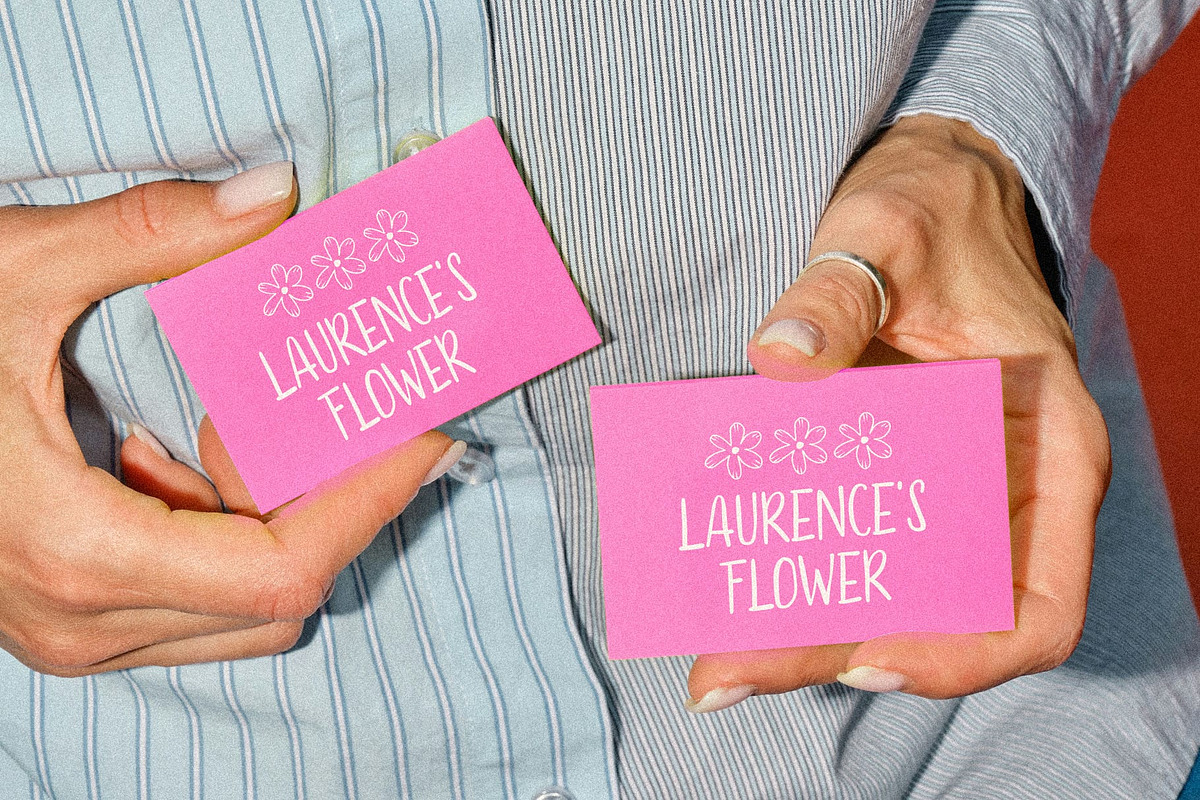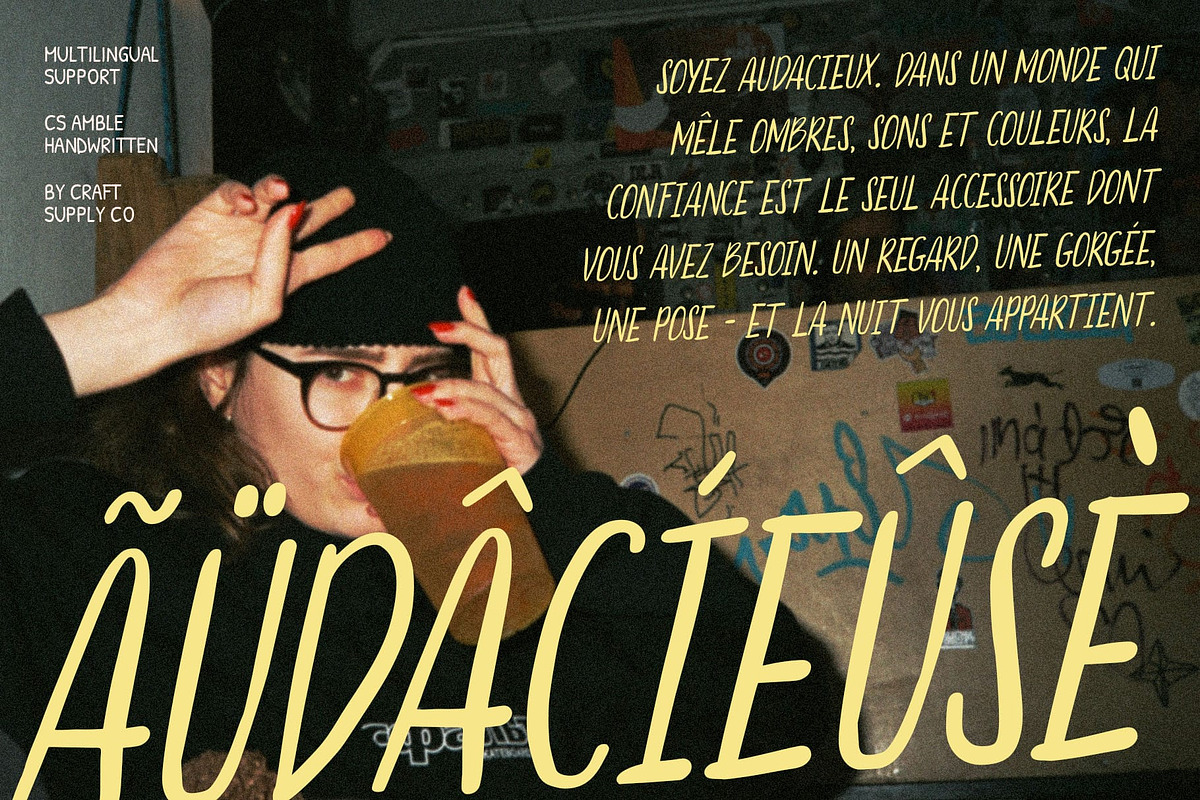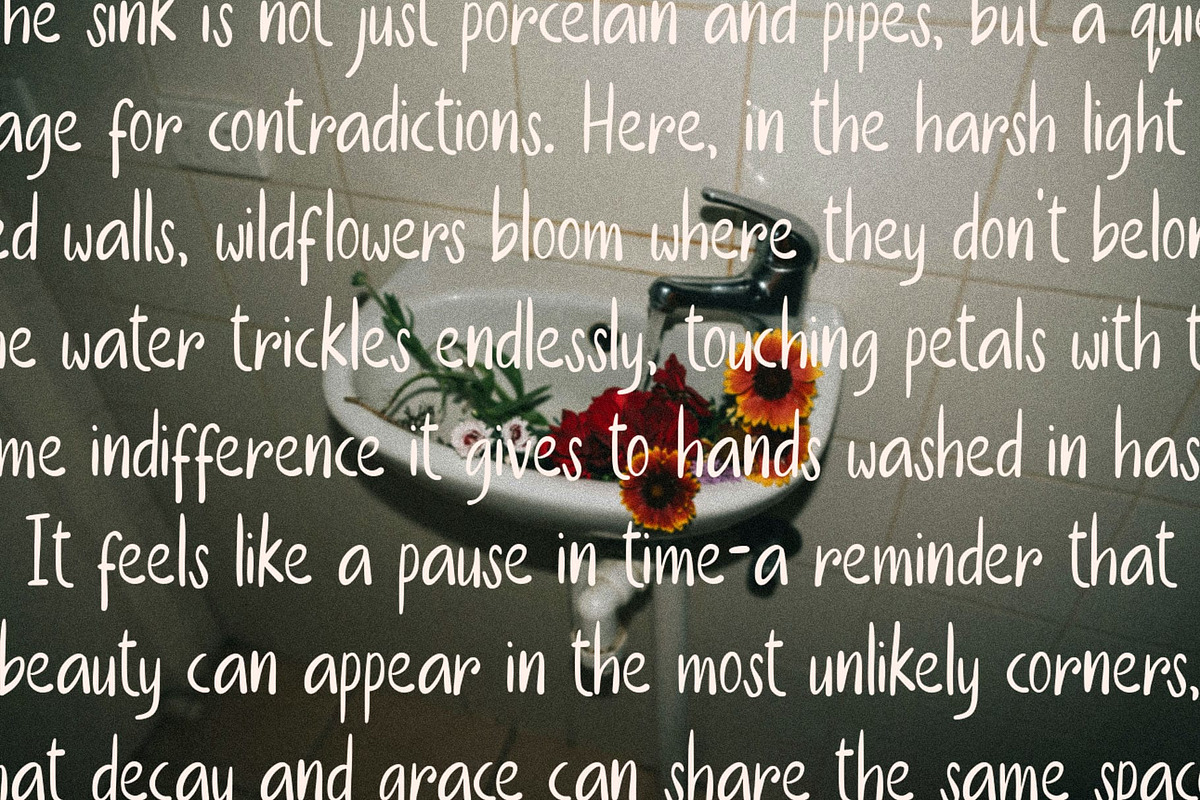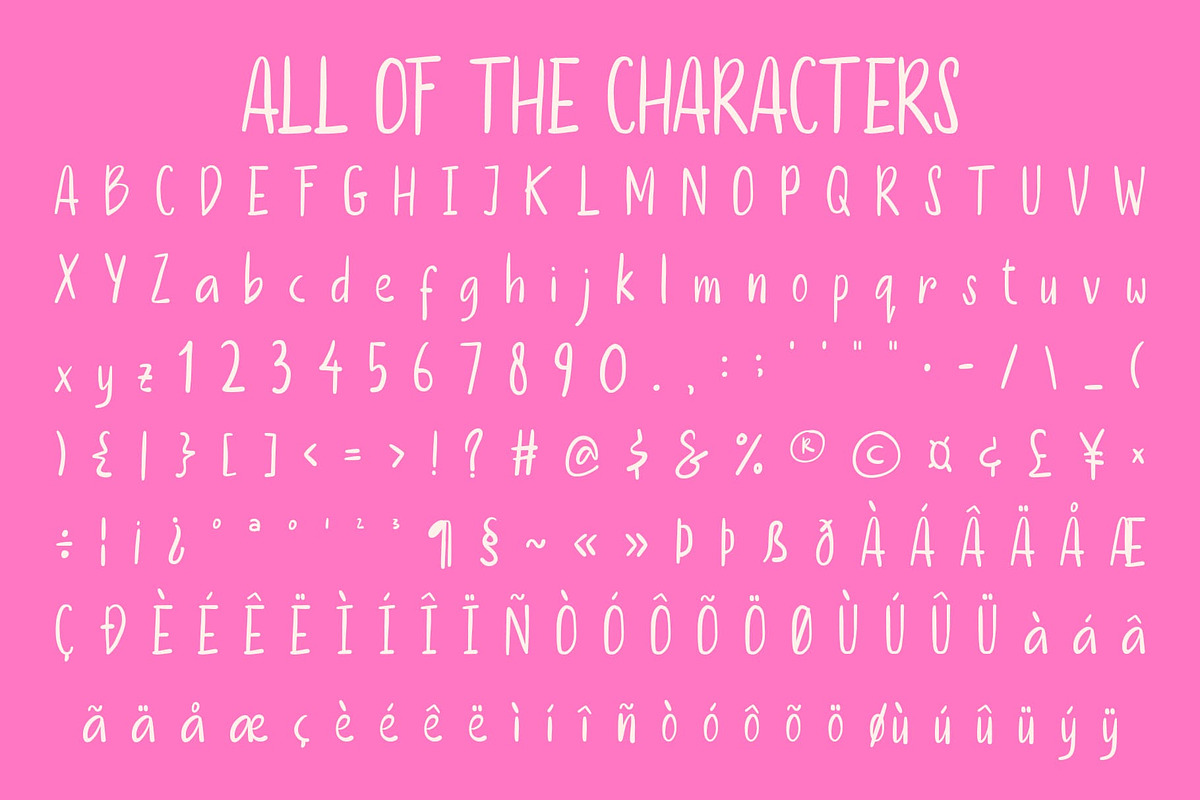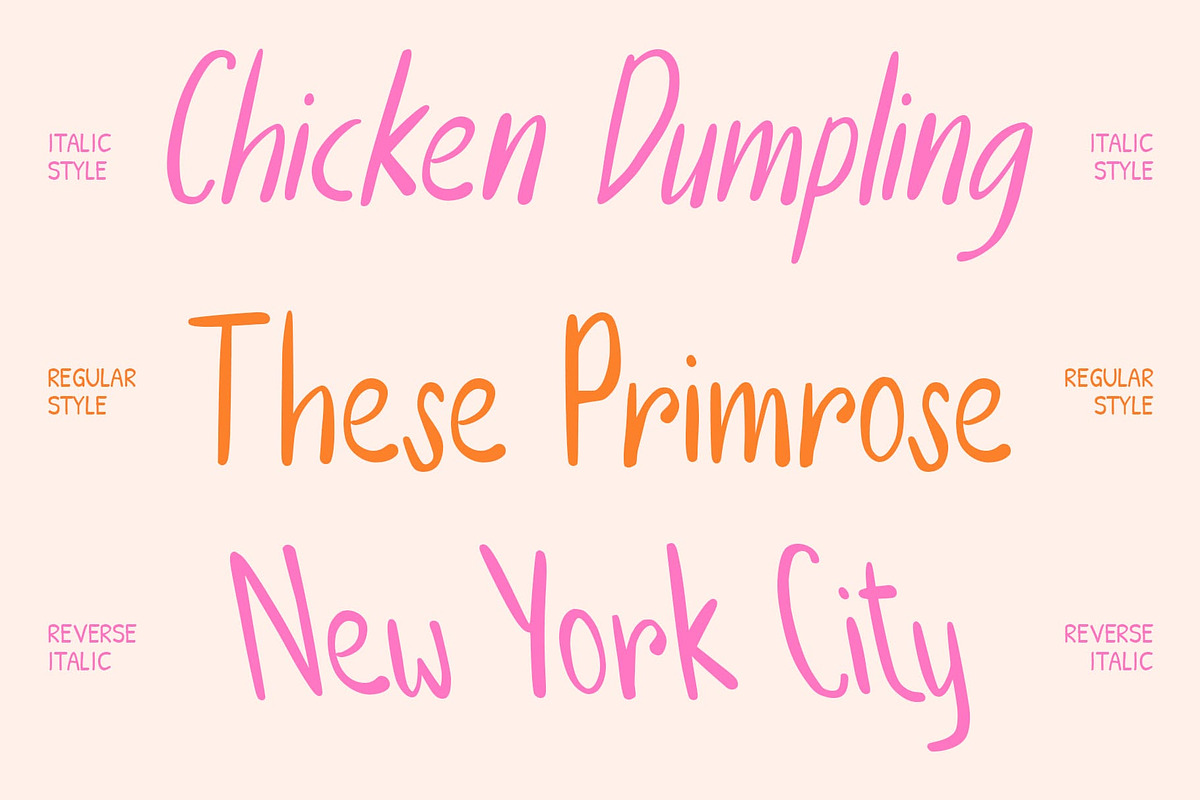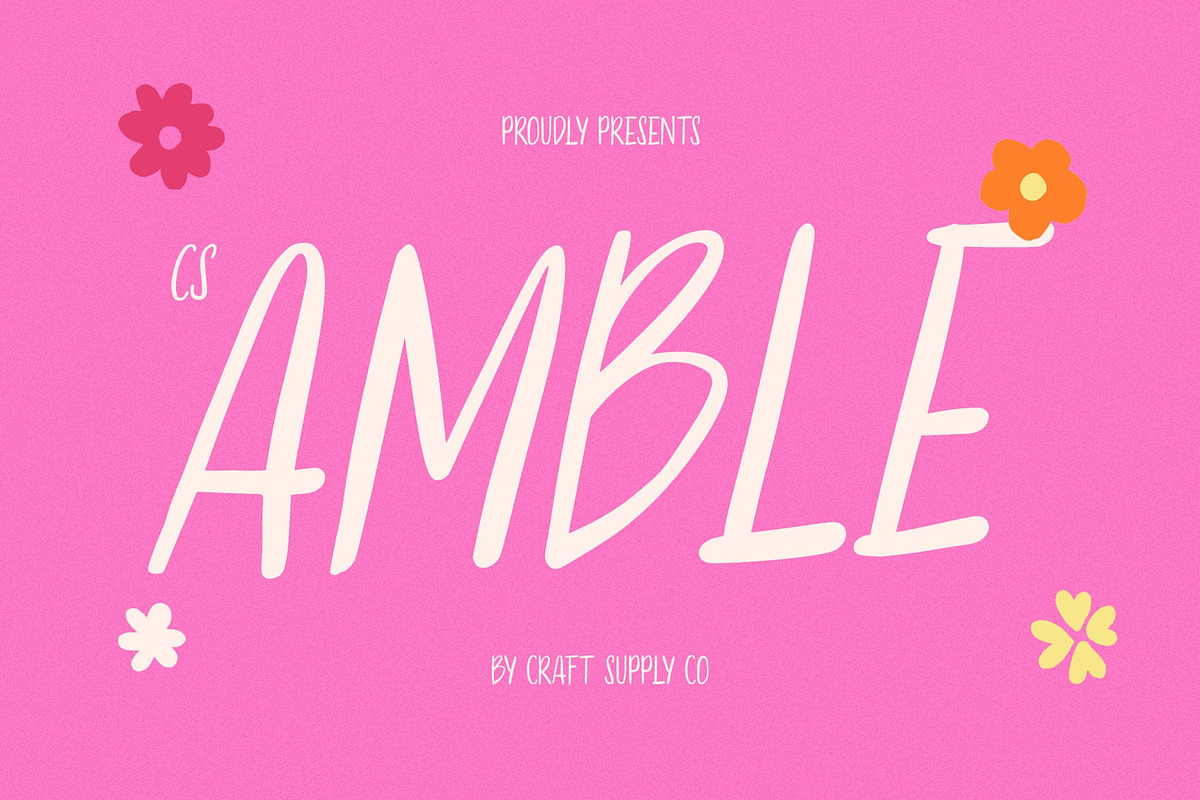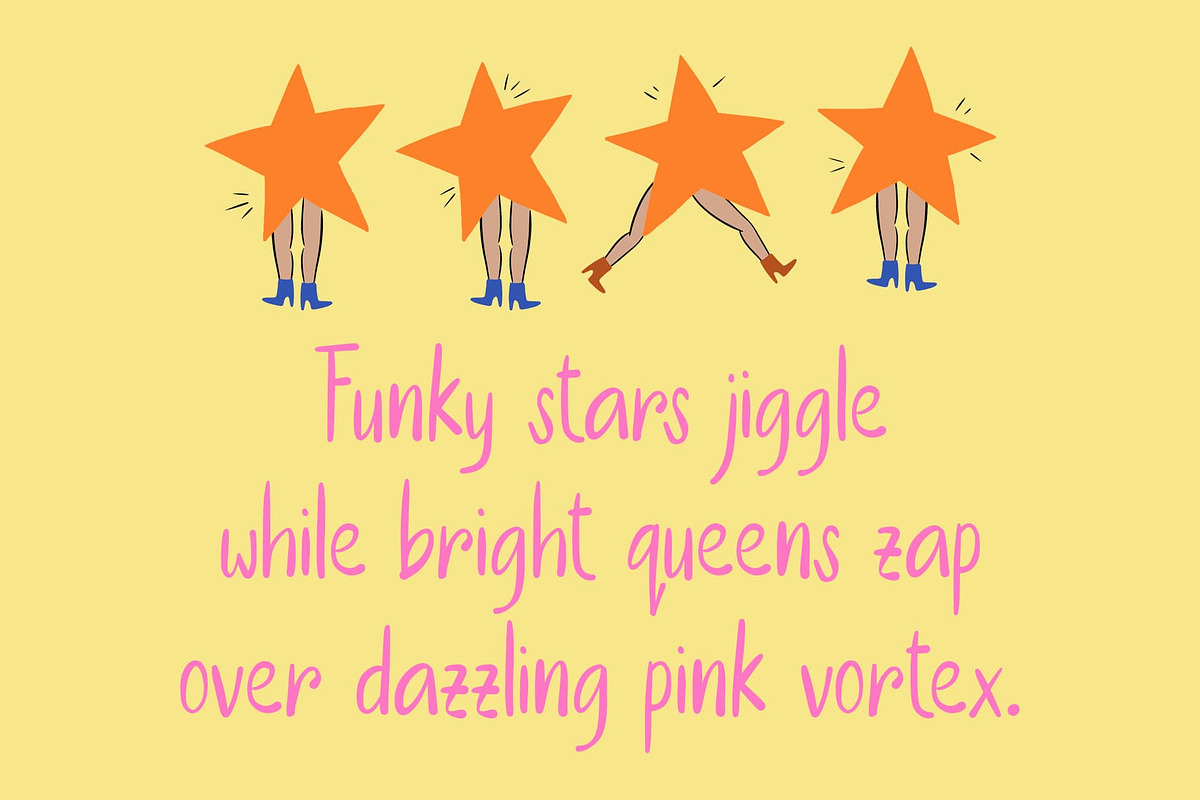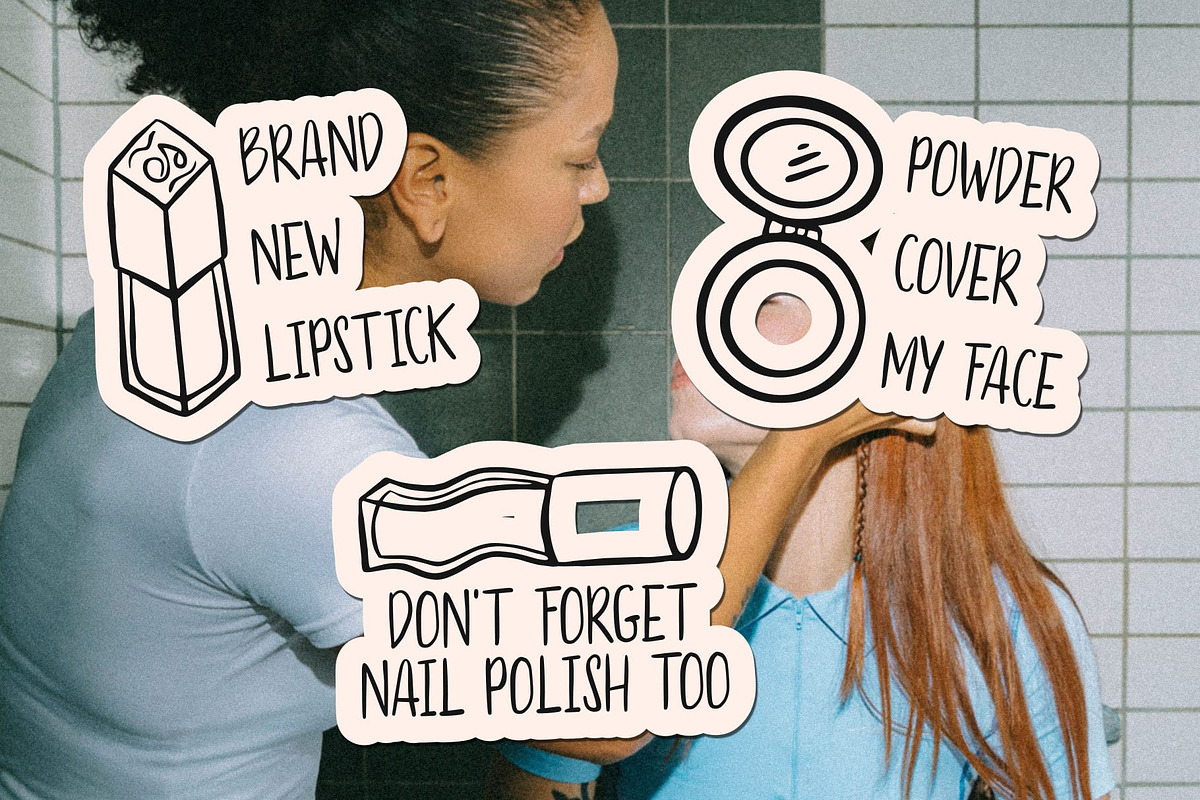
CS Amble – Beauty Handwritten Font
CS Amble – Soft Beauty with a Handwritten Heart
Beauty Handwritten Font with a Gentle Touch This is a charming and approachable beauty handwritten font that radiates warmth and authenticity. Its soft, flowing strokes create a welcoming feel, while maintaining a clean and modern structure. Designed to capture the ease of casual handwriting, this font adds a human touch to any design.
Blending Handwritten Grace with Sans Serif Clarity What makes unique this font is perfect harmony between expressive handwritten lines and the readability of sans serif forms. The result is a balanced, versatile typeface that feels natural yet polished. Whether used in short phrases or longer text, it maintains clarity while preserving a soft, handwritten charm.
Soft Vibe for Calm and Friendly Design With its gentle curves and light rhythm, this font brings a soothing, friendly vibe to your designs. It evokes comfort and connection ideal for projects that aim to communicate sincerity, care, or creativity. Each letter feels approachable, like a handwritten note meant to brighten someone’s day.
Perfect for Branding and Everyday Elegance This font is the ideal choice for branding, posters, postcards, letters, or packaging that call for warmth and style. Its soft personality and versatile appeal make it a go-to font for designers who want to express friendliness with elegance. Whether for personal projects or professional identities, adds charm, clarity, and a heartfelt touch.
- CS Amble Regular
- CS Amble Italic
- CS Amble Reverse Italic